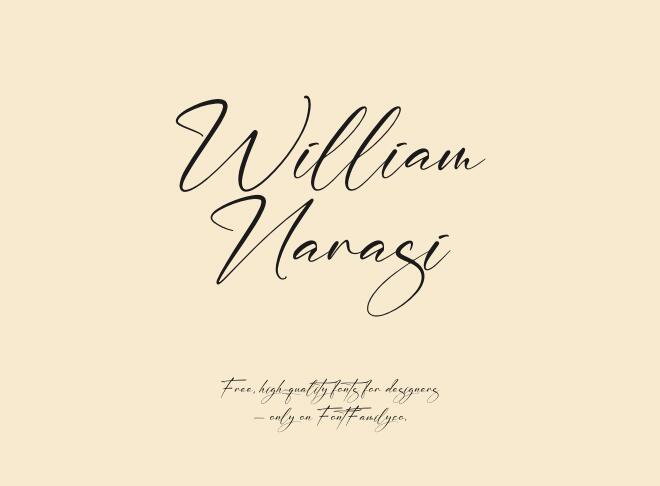
William Narasi Font
Introducing the William Narasi Font, a beautifully crafted script font with a classic yet elegant touch. This handwritten style font mimics a refined calligraphy, making it perfect for wedding invitations, branding, social media posts, and any design that requires a sophisticated feel. Compared to other fonts, William Narasi Font stands out for its unique style and versatility, providing an extra layer of elegance to your design. Its fluid letterforms and classic appeal make it an excellent choice for those seeking to add a touch of class and timeless style to their work. With its intricate design and attention to detail, the William Narasi Font is sure to leave a lasting impression.